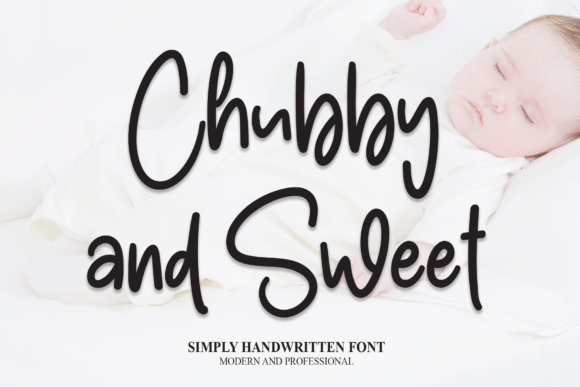
Dive into the whimsical world of Chubby and Sweet, a captivating script font family that radiates personality and charm. Its chubby and sweet letters dance across the page, evoking a sense of joy and playfulness. Whether you're designing wall displays, wedding invitations, or social media posts, this font imbues your creations with a touch of handcrafted elegance.
Picture your designs adorned with Chubby and Sweet's enchanting characters. Its unique style adds a personal, handwritten flair to logos, advertisements, product packaging, and labels, making your products stand out from the crowd. Imagine your customers' delight as they receive their purchases wrapped in packaging adorned with the charming letters of Chubby and Sweet, creating a memorable unboxing experience.
Unleash your creativity with Chubby and Sweet's versatility. This font family is the perfect companion for photography, watermarks, invitations, and stationery. Its handwritten aesthetic adds a touch of warmth and authenticity to your personal correspondence, making every letter and card a cherished keepsake.
Embrace the magic of Chubby and Sweet and embark on a creative journey filled with personality and charm. This font family is your ticket to creating designs that speak to the heart and leave a lasting impression. So, dive into the world of Chubby and Sweet today and let your creativity blossom!